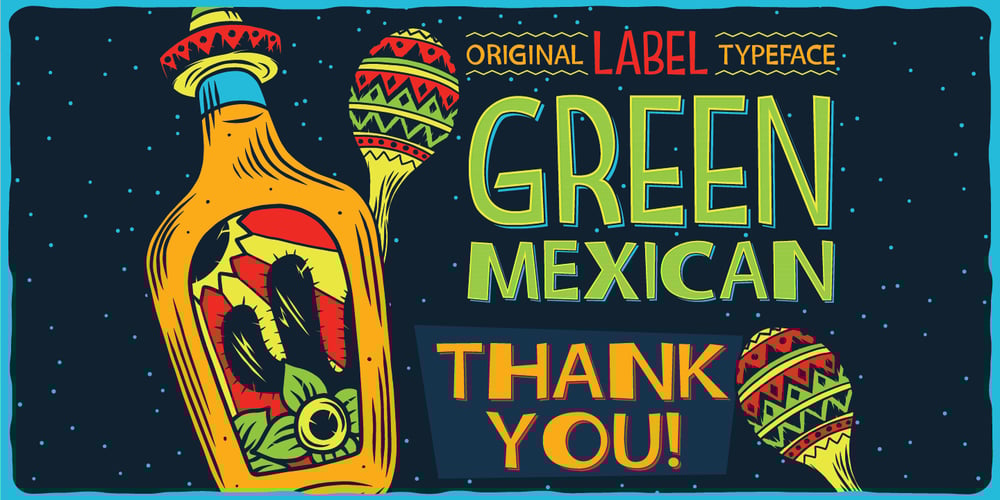
Green Mexican Font Family was designed by Oleg Voznyy and published by Vozzy. Green Mexican contains 4 styles and family package options. Introducing a vintage look label font named “Green Mexican”. You can see all available characters in the posters. This font has 4 styles. This font will look good on any retro design like poster, t-shirt, label, logo etc.